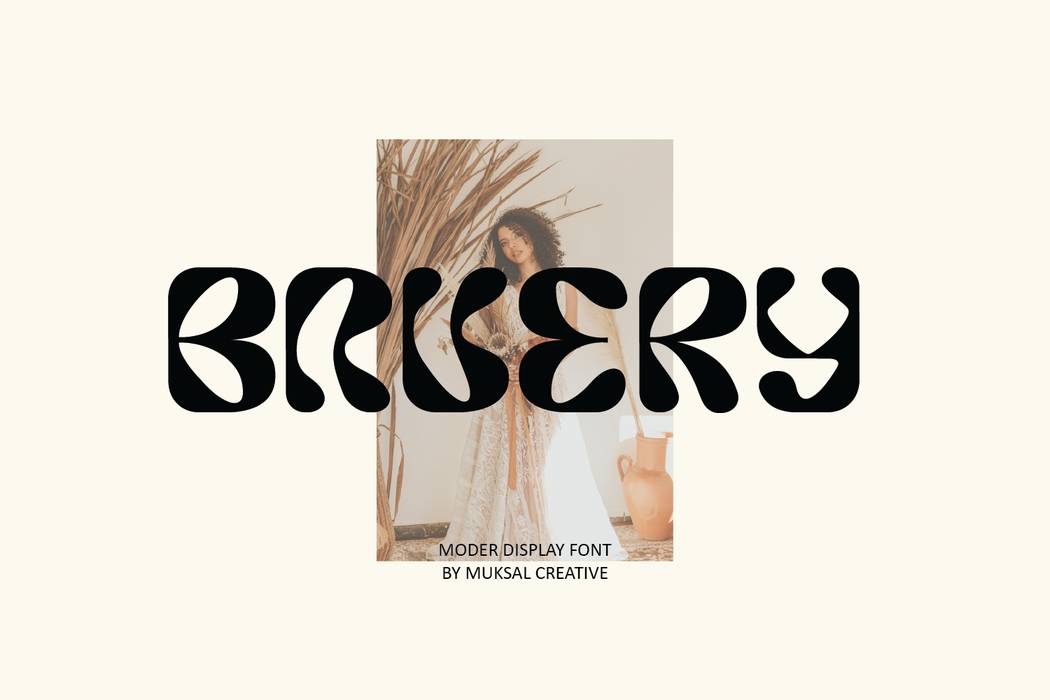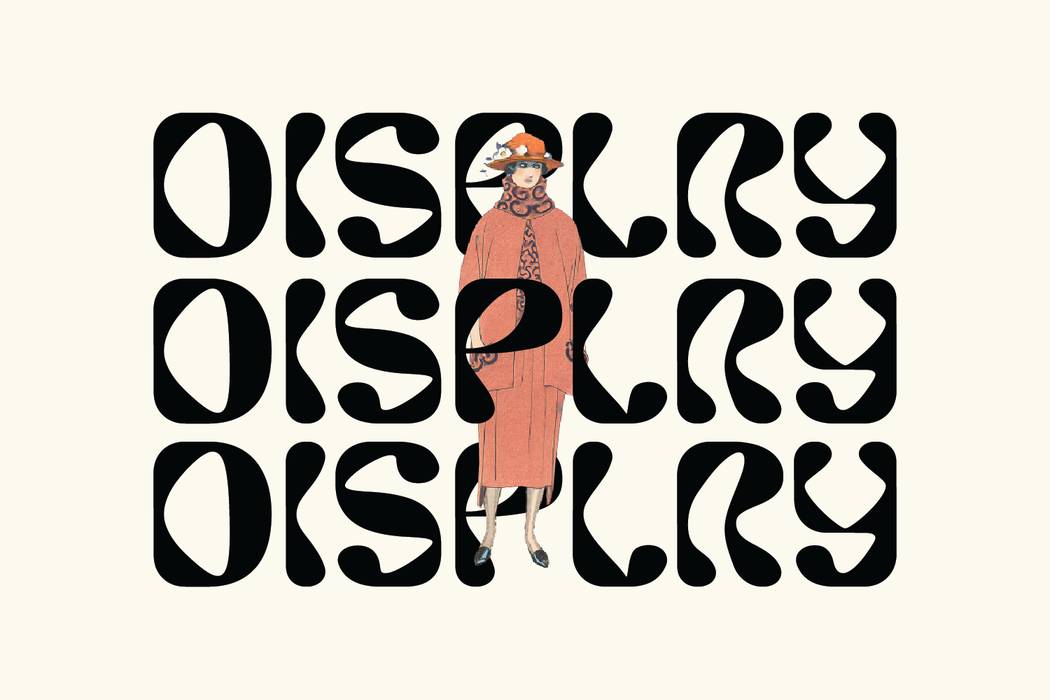
Bavery is a bold, decorative display font characterized by its highly stylized, rounded letterforms with organic, flowing shapes and thick strokes. This eye-catching font carries a playful yet retro vibe, making it ideal for creative branding, posters, and headlines where a unique and artistic touch is desired. Its distinctive look works best in settings that seek to stand out with a fun and unconventional personality.
Bavery Font
About Bavery Font
| Font family | Bavery Font |
| Designer | Muksal Creative |